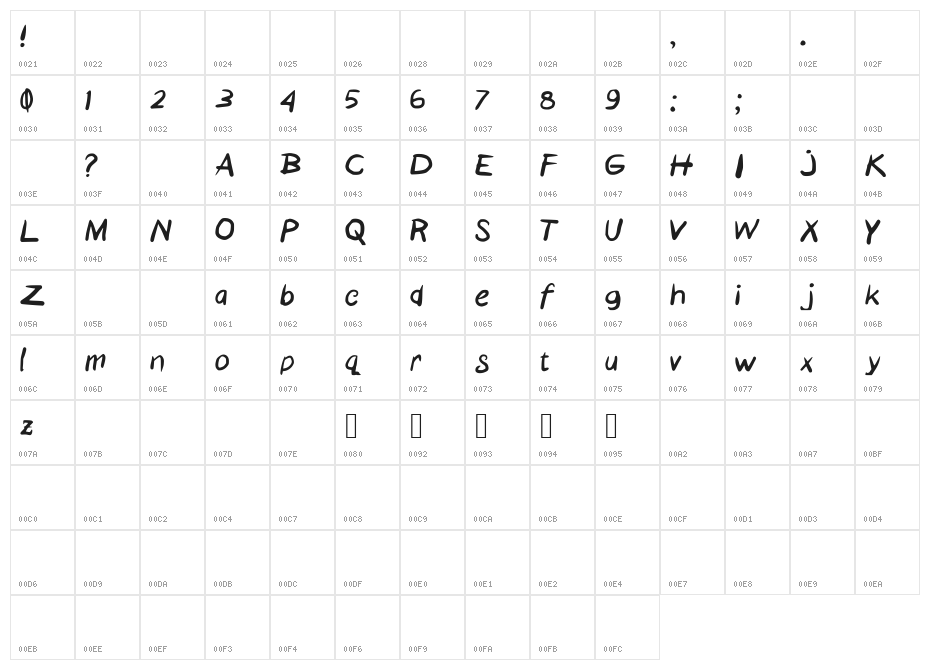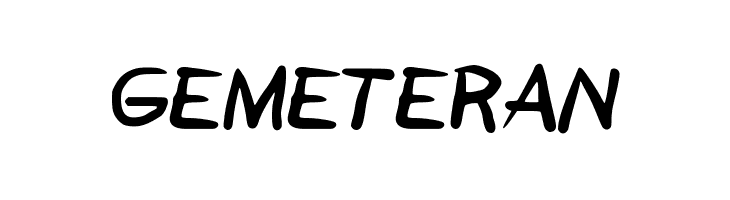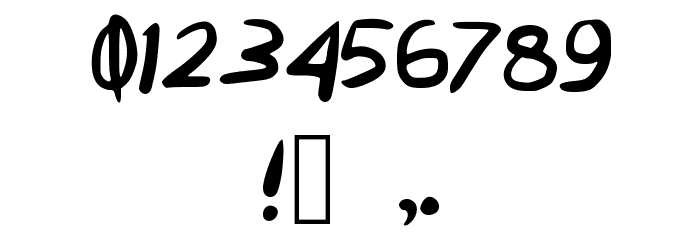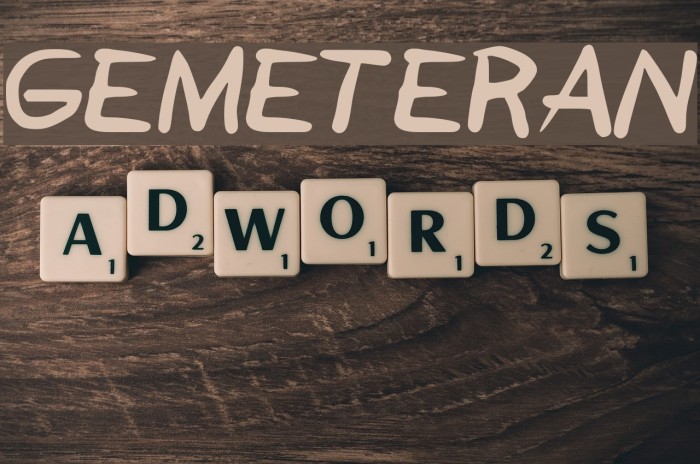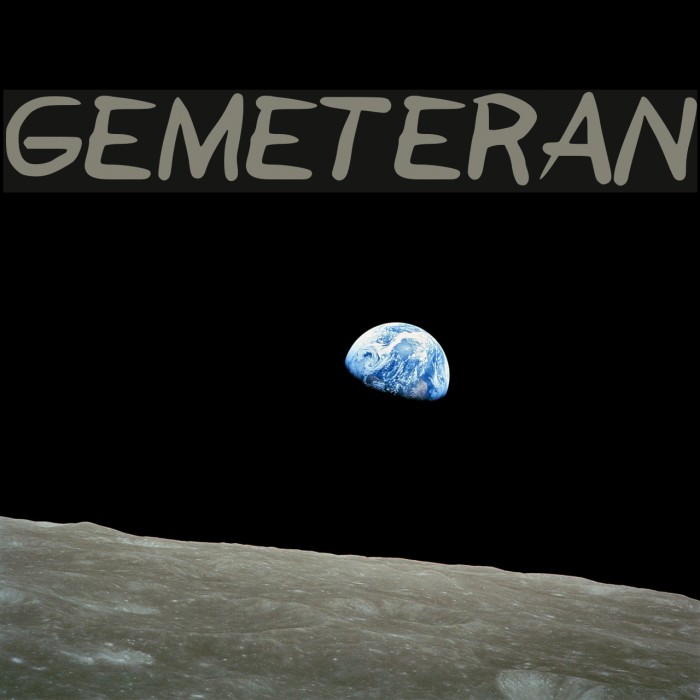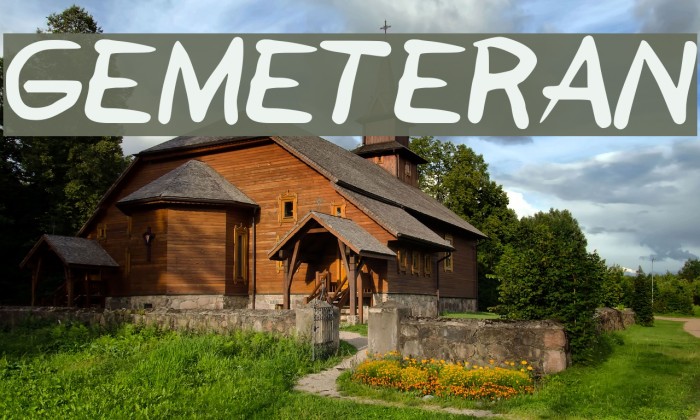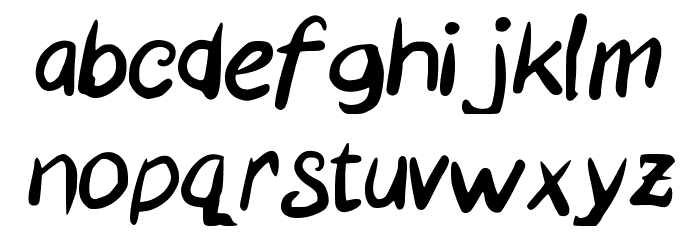
GEMETERAN Font
GEMETERAN Description
This font exhibits a playful and dynamic handwritten style, characterized by its fluid and slightly irregular strokes. The letters have a casual, informal appearance, with a slight slant that adds to its energetic feel. The uppercase letters are bold and prominent, while the lowercase letters maintain a consistent flow, enhancing readability. The numerals are well-balanced, matching the overall style of the alphabet. Special characters are integrated seamlessly, maintaining the font's cohesive look. The font's unique personality makes it suitable for creative and informal applications.
| Proposed Projects | Ideal for greeting cards, children's books, playful branding, and informal invitations. |